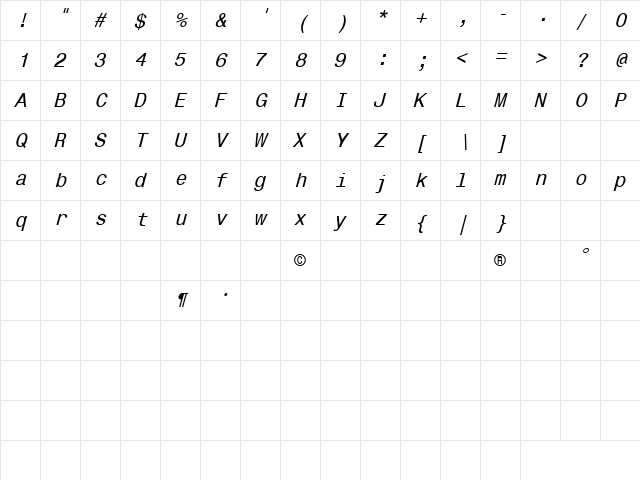
CorporateMonoItalic Italic
Design Context for CorporateMonoItalic Typeface
CorporateMonoItalic brings the precise, column-aligned rhythm of monospaced typography to designs that value technical clarity and systematic order. The slanted form adds forward momentum and visual energy.
Pro Tip: Pair CorporateMonoItalic with a proportional sans for UI contexts where code-style labels and regular body copy need to coexist.